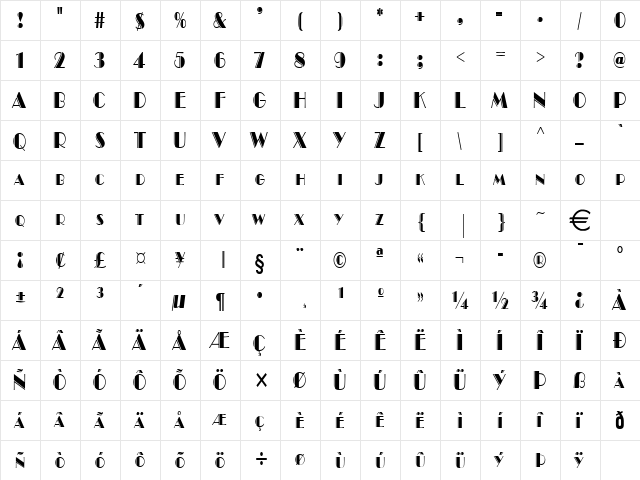
BrandoEngravedCondensed Normal
Design Context for BrandoEngravedCondensed Typeface
BrandoEngravedCondensed is built around its visual character rather than neutral utility — its distinctive forms are designed to make an impression at display sizes.
Font Pairing: Pair with a clean neutral sans-serif for body copy to let BrandoEngravedCondensed's character lead without overwhelming the composition.
Pro Tip: Use BrandoEngravedCondensed exclusively at display sizes — it was designed to be seen, not read at length. Let a neutral companion handle body copy.